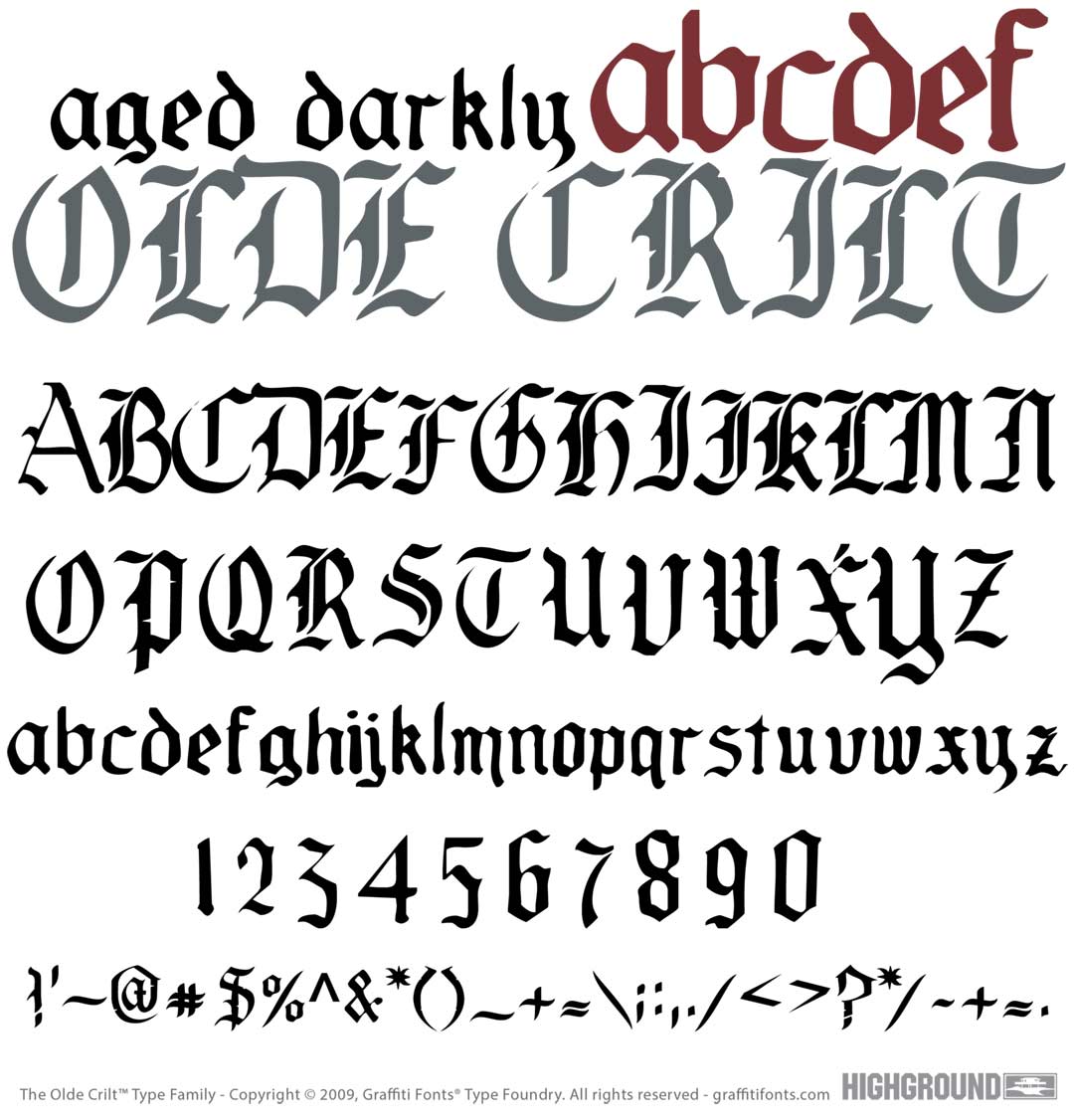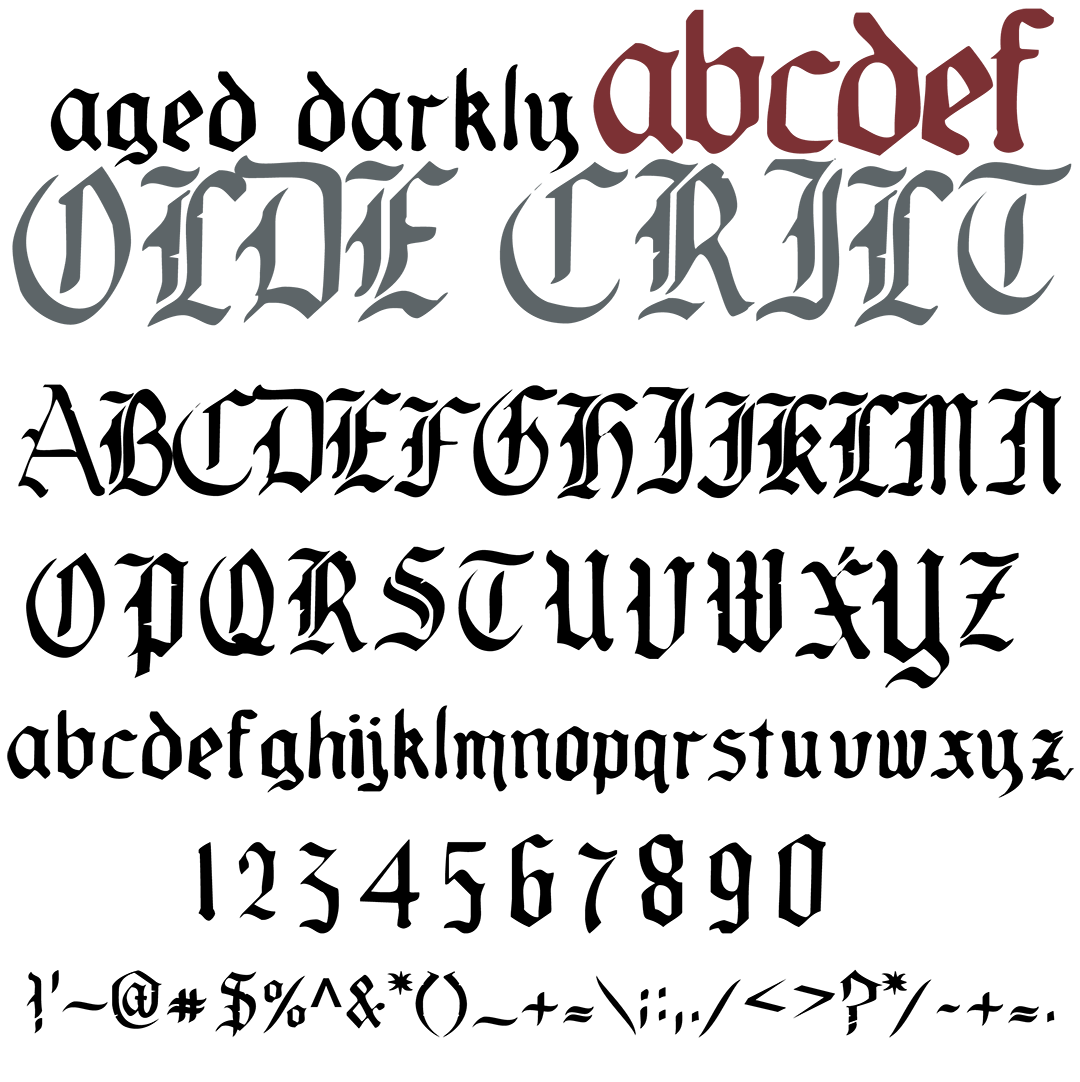
Olde Crilt Font
Olde Crilt Title Image
Olde Crilt Graffiti Alphabet
Olde Crilt Graffiti Font Family
This choppy old english style is good for creating a natural decayed or worn down appearance. Full uppercase & lowercase alphabets are included along with numbers & basic punctuation.